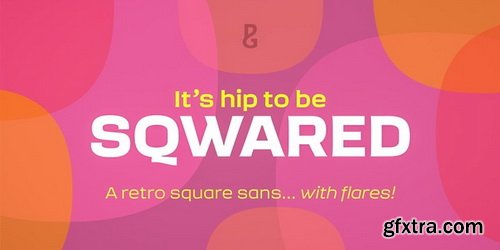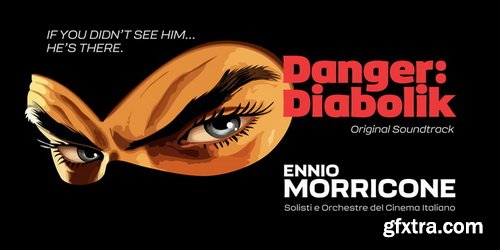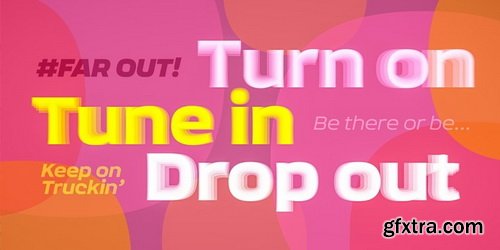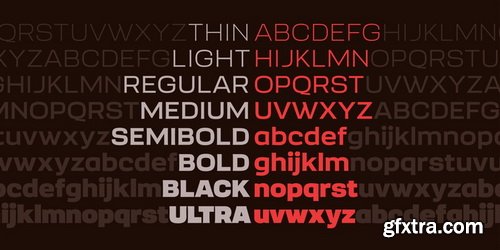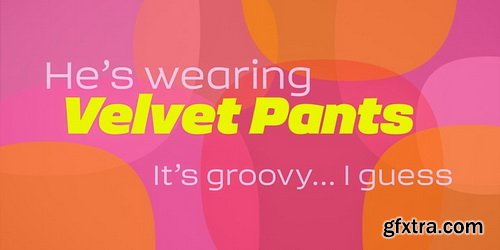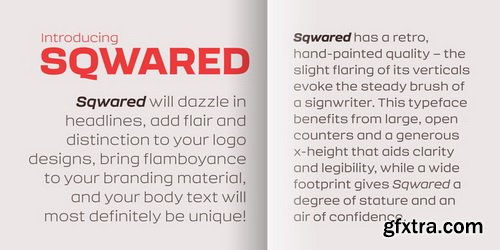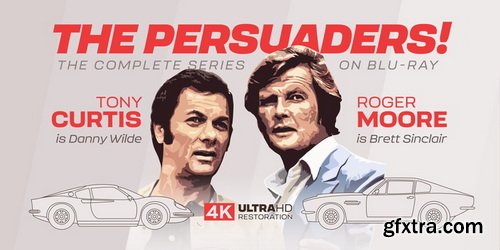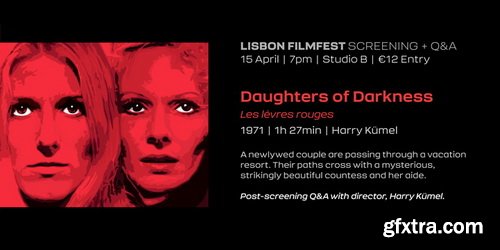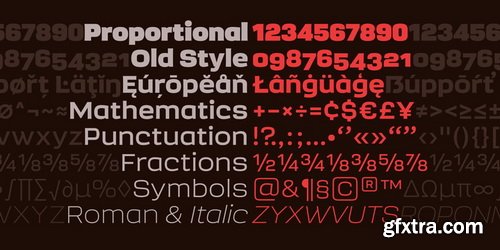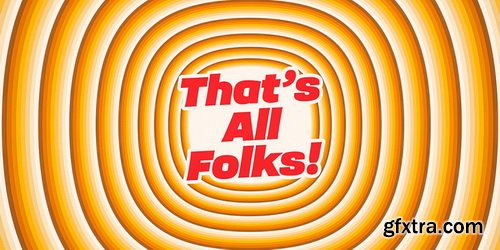
Sqwared Font Family
Sqwared is a square sans serif type family... with flares! This typeface has a retro, hand-painted quality – the slight flaring of its verticals evoke the steady brush of a signwriter. Sqwared benefits from large, open counters and a generous x-height that aids clarity and legibility, while a wide footprint gives these fonts a degree of stature and an air of confidence. Each character was drawn while immersed in a late sixties/early seventies vibe, but there’s no reason why Sqwared can’t be used for your contemporary designs.